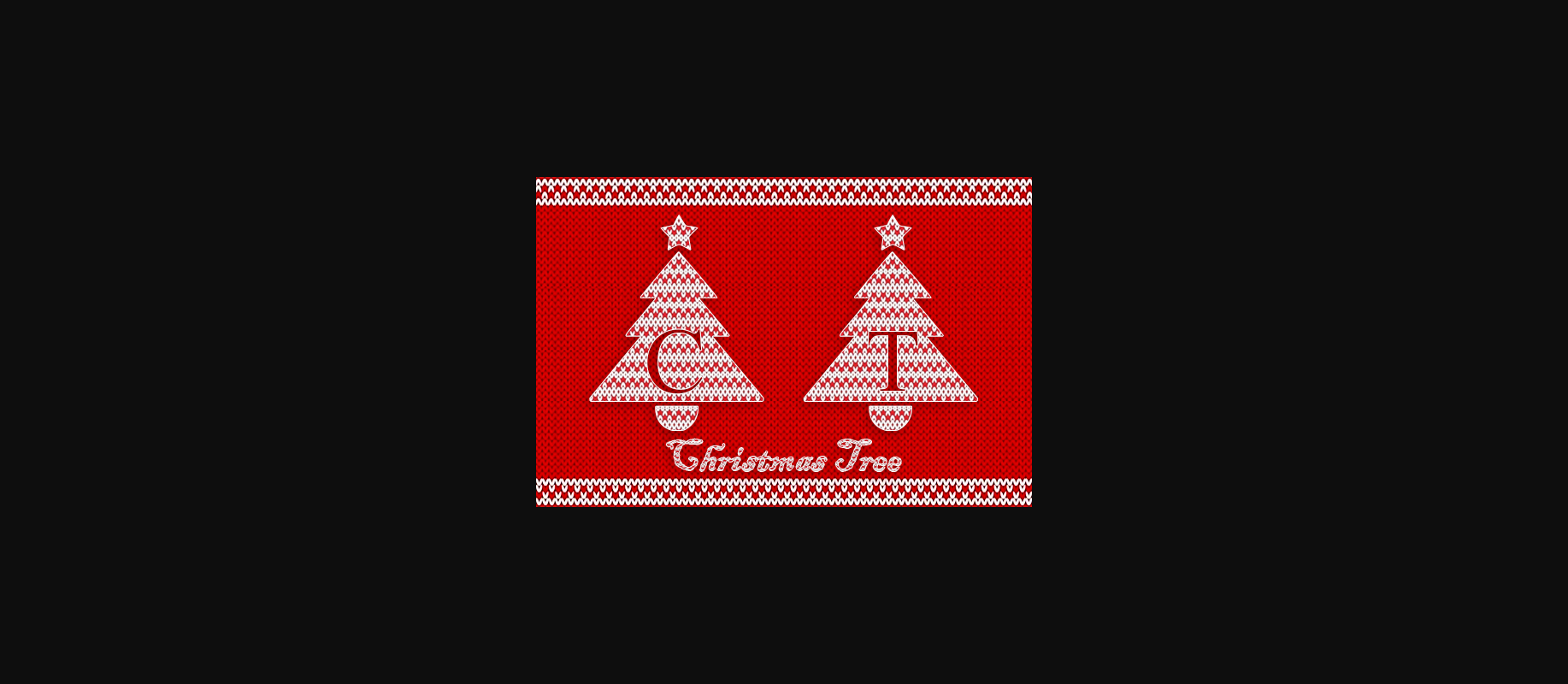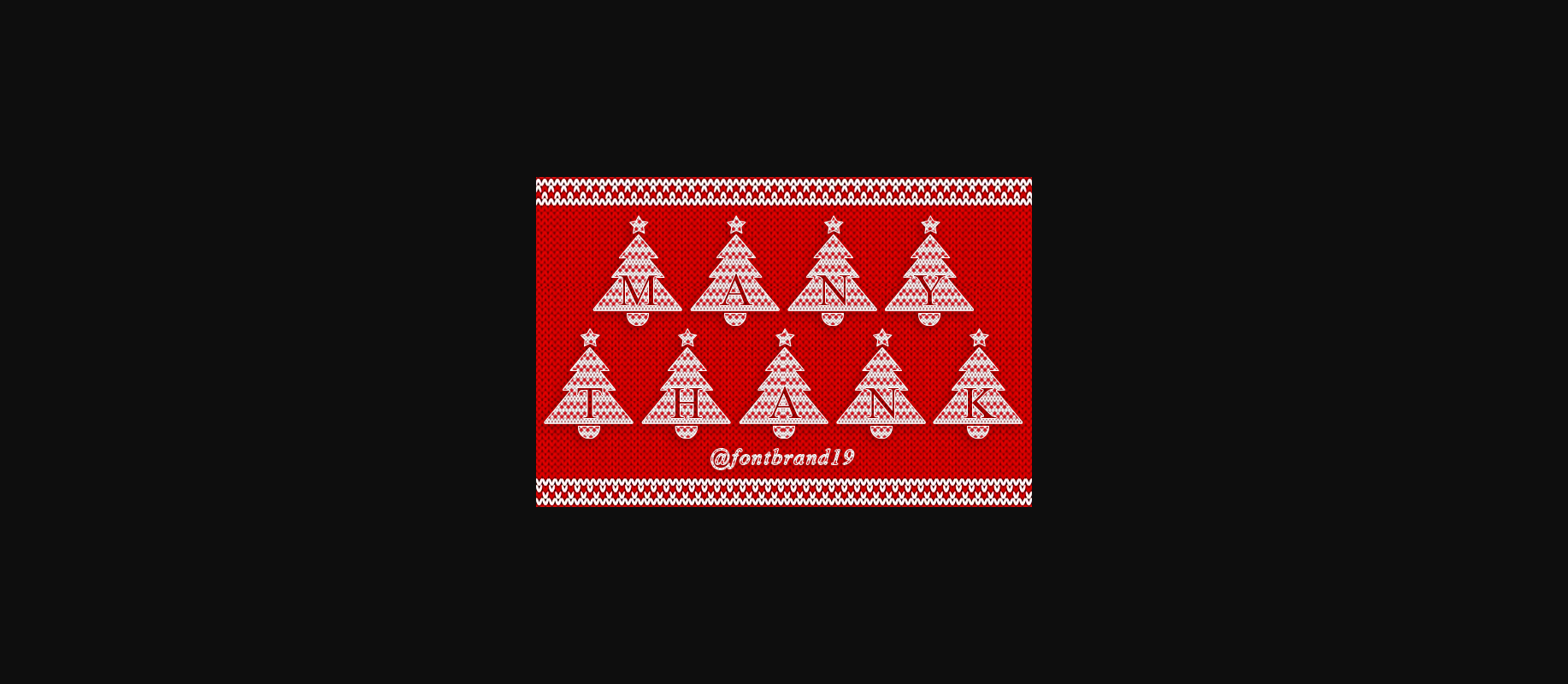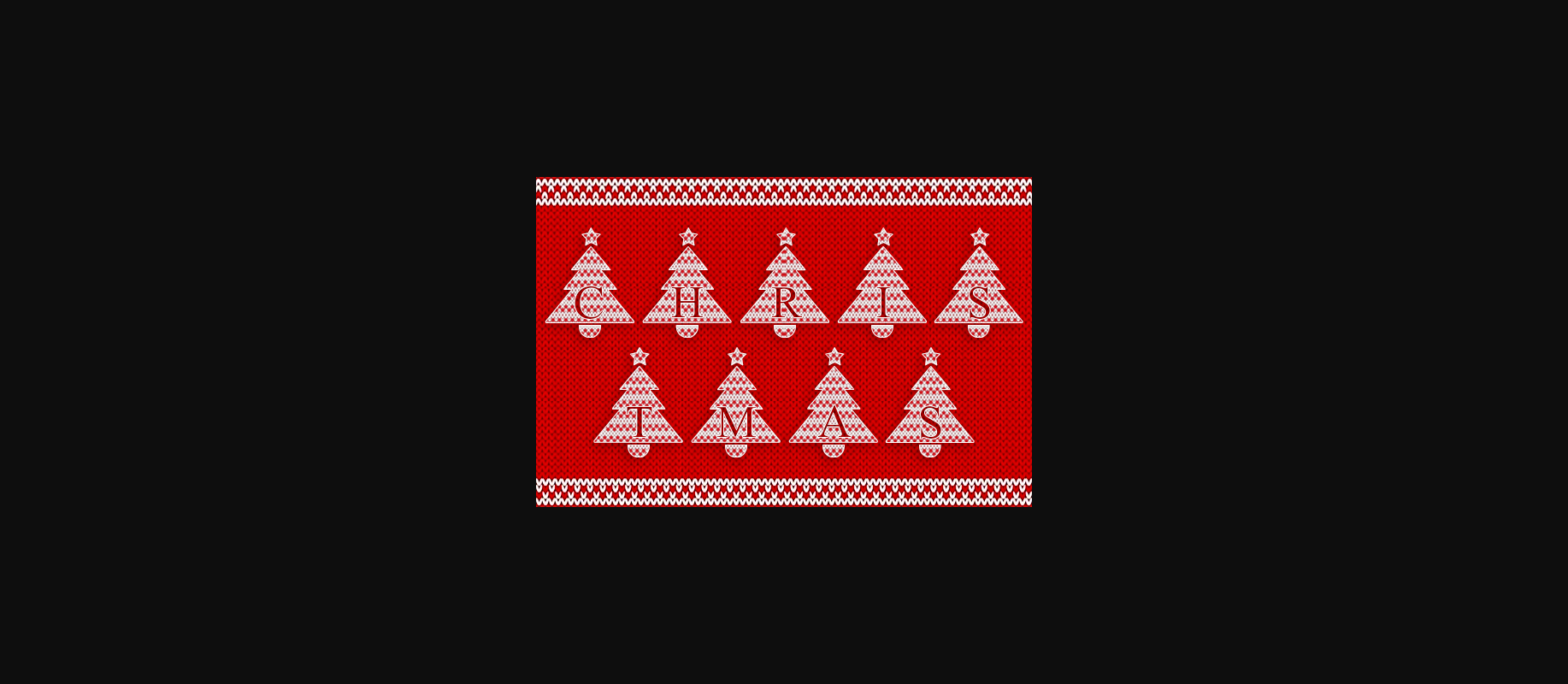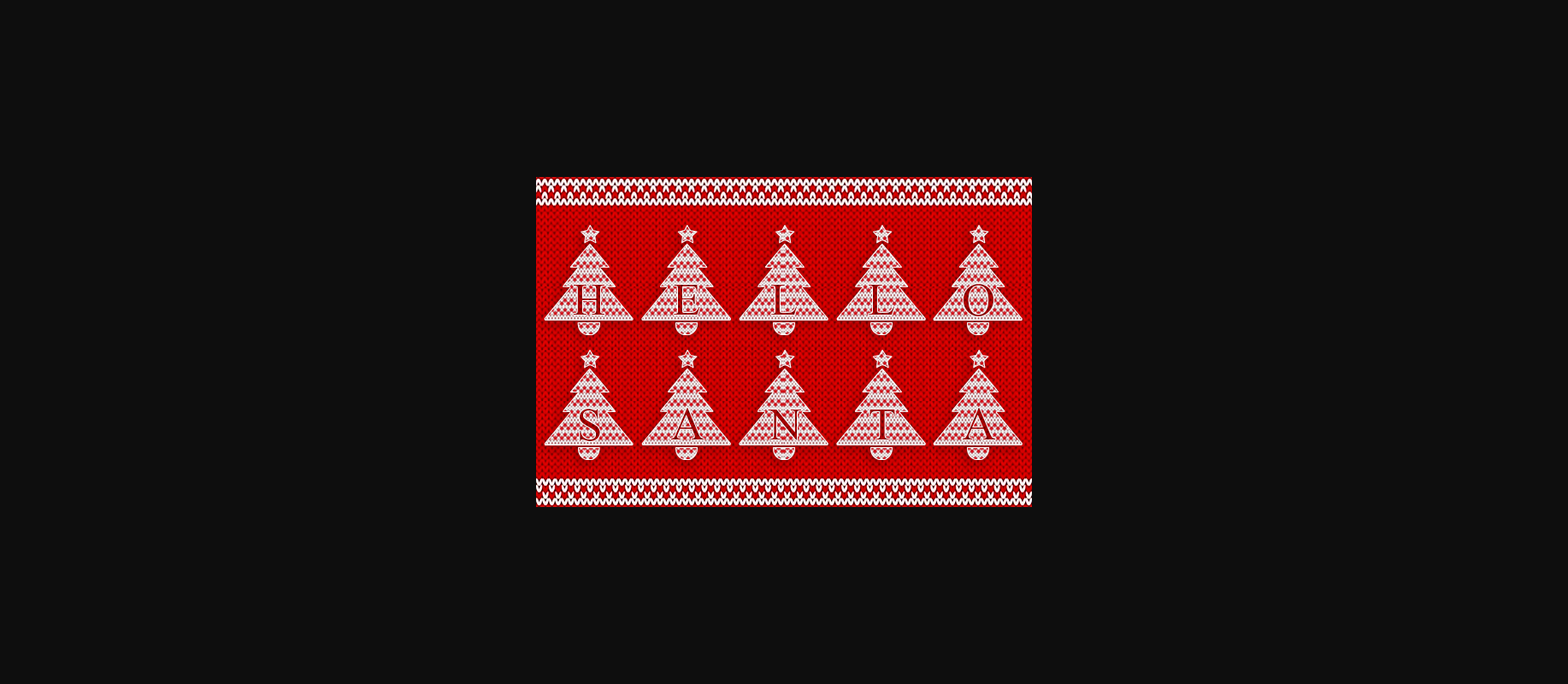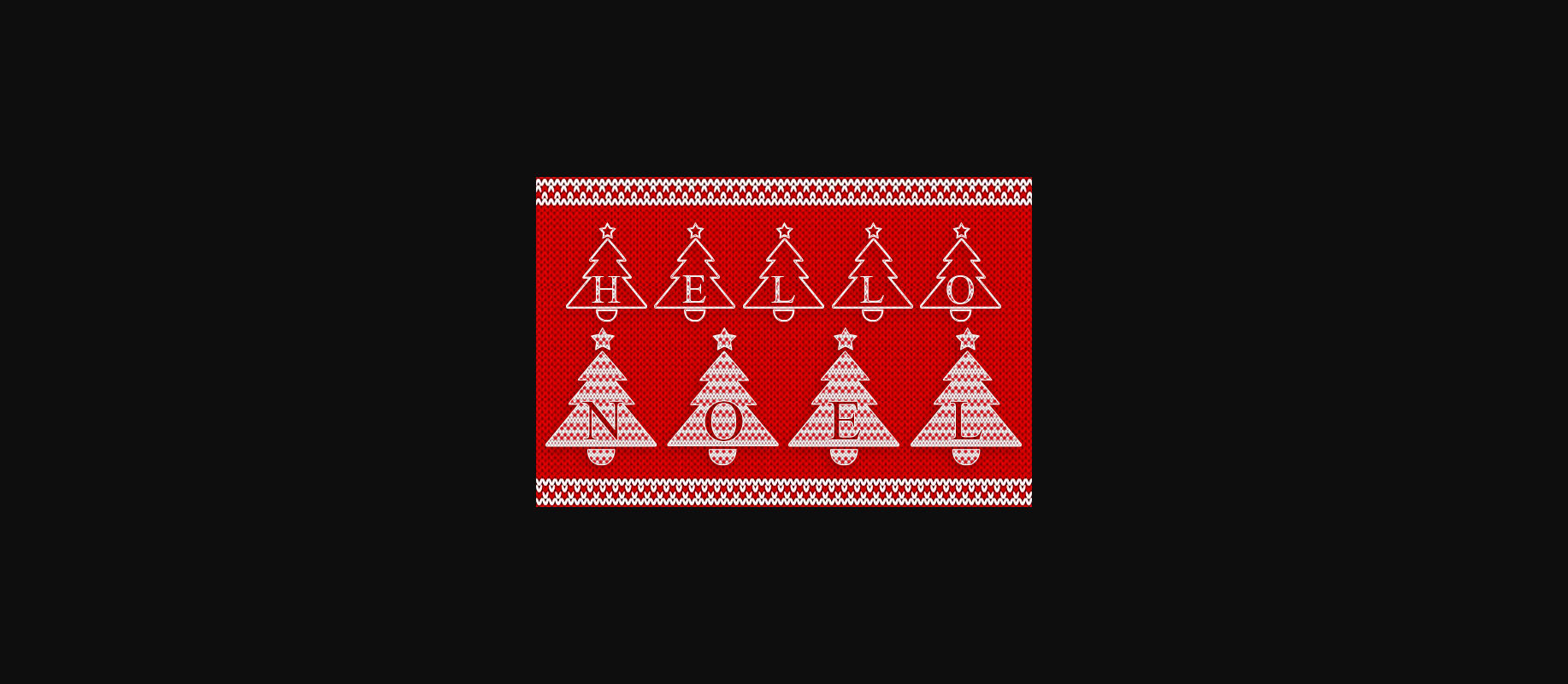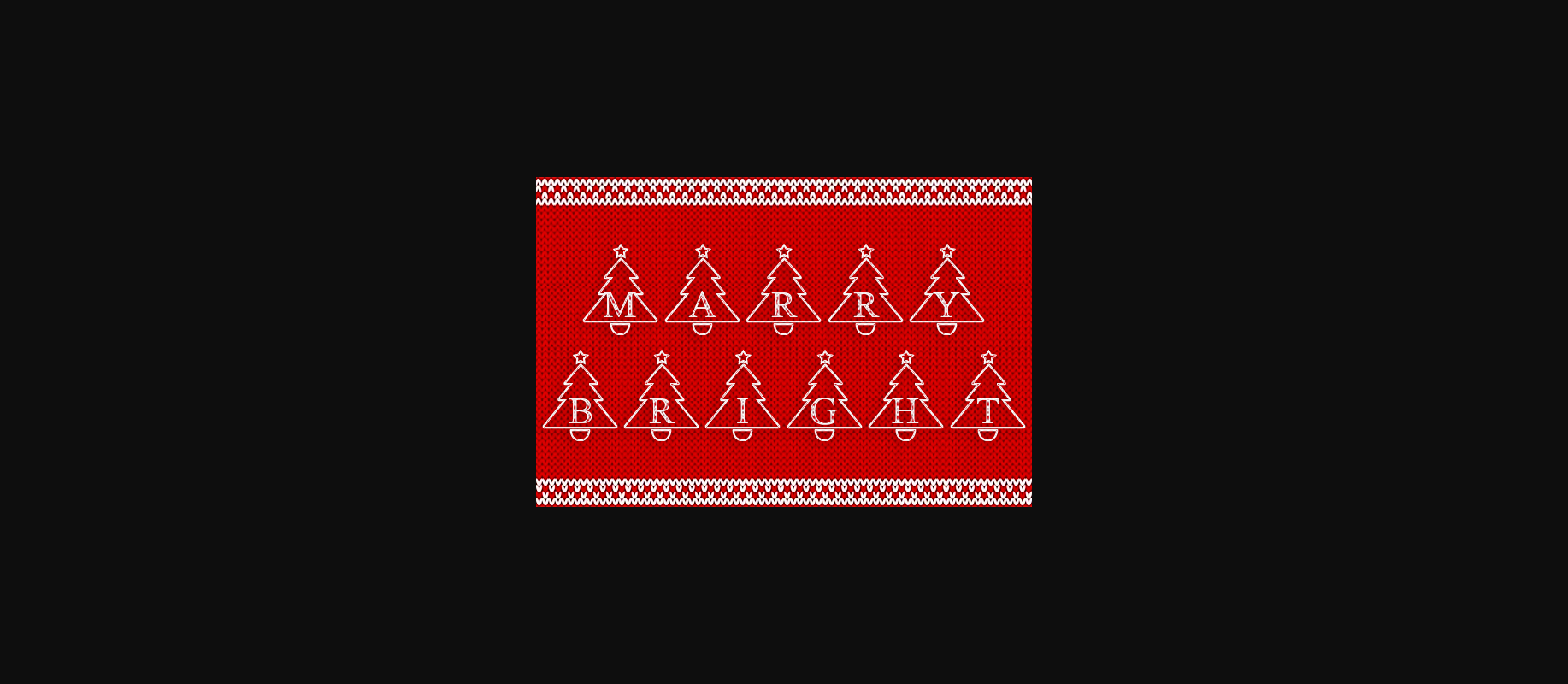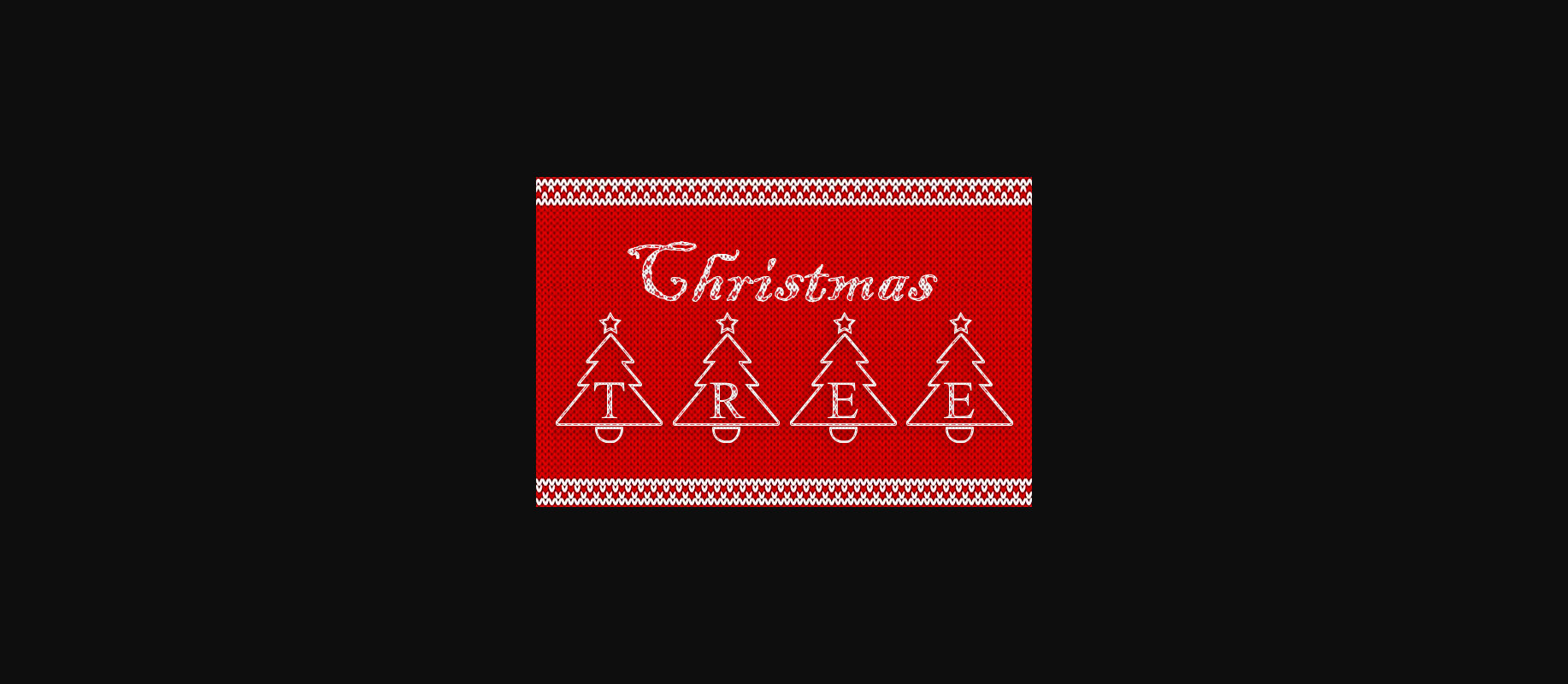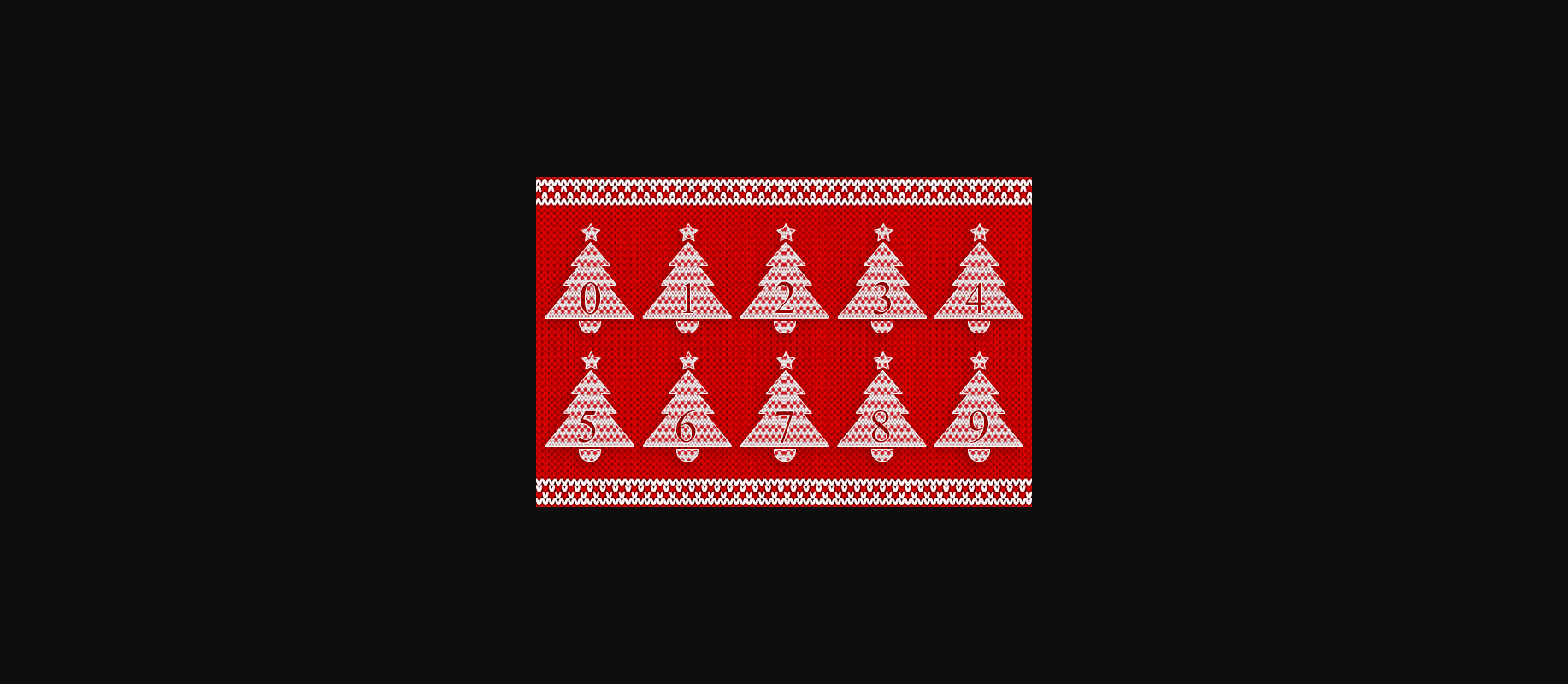
HomeDecorative FontsChristmas Tree Font Decorative Fonts Christmas Tree Font FacebookXPinterestWhatsApp 1 of 10 ... Christmas Tree Font Poster 2... Christmas Tree Font Poster 3... Christmas Tree Font Poster 4... Christmas Tree Font Poster 5... Christmas Tree Font Poster 6... Christmas Tree Font Poster 7... Christmas Tree Font Poster 8... Christmas Tree Font Poster 9... Christmas Tree Font Poster 10... About Christmas Tree Font Christmas Tree is a festive and very detailed decorative font! Fall in love with its incredibly versatile style and use it to create spectacular designs! DOWNLOAD NOW People also explored Mojave Font Honeyguide Mastrih Font Fegirolst Font Animal Kingdom Font Fragtude Font Sukuratchi Font Creatifitas Font Restorya Font 413 0 TagsChristmas Tree Font Previous articleXmas Tree FontNext articleHearts Font LEAVE A REPLY Cancel reply Comment: Please enter your comment! Name:* Please enter your name here Email:* You have entered an incorrect email address! Please enter your email address here Website: Save my name, email, and website in this browser for the next time I comment. Personal Use Free Happy Santa Personal Use Free Read more about this font Cute Butterfly Personal Use Free Read more about this font Spaghetti Personal Use Free Read more about this font Sefiya Personal Use Free Read more about this font BLOG How to Cut Any Font on Cricut: Convert a Font to SVG (Free) Turn any font into a clean SVG so it cuts crisp on Cricut - a quick 3-step workflow using a free font-to-SVG tool. Where to Buy American Fonts Online in 2024 Top 7 Google Fonts Alternatives for Faster and Privacy-Friendly Web Design (2025) Best Fonts for T-Shirt Design – Top 2025 Picks